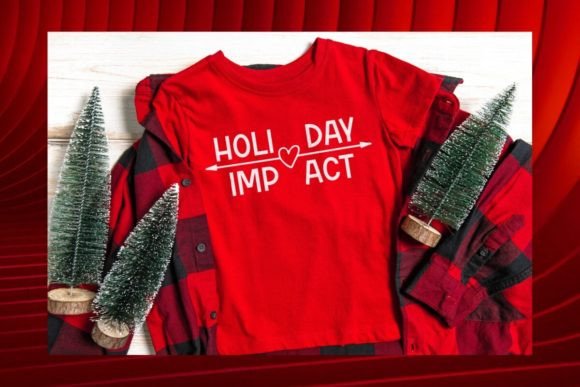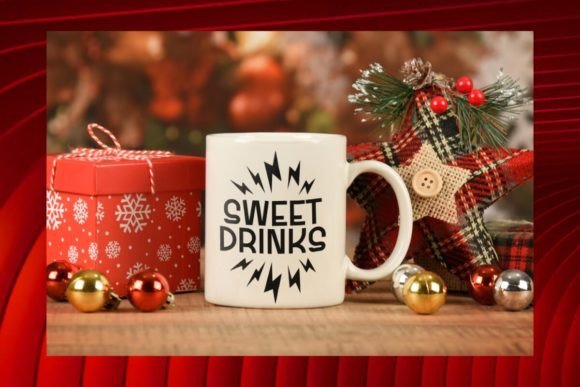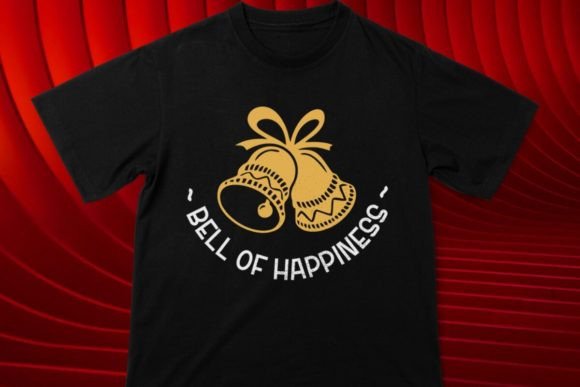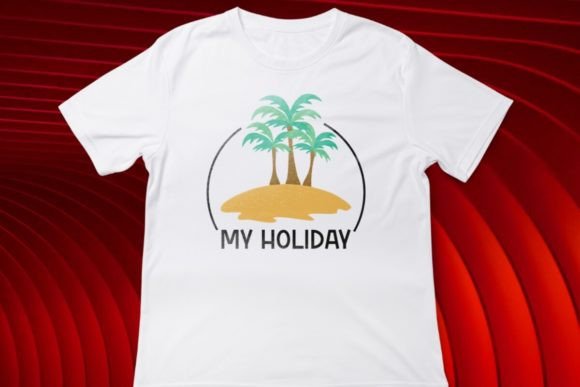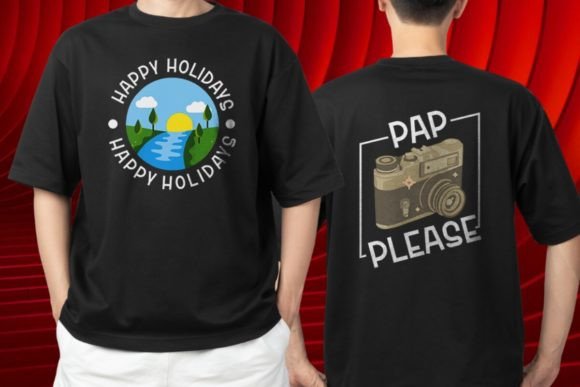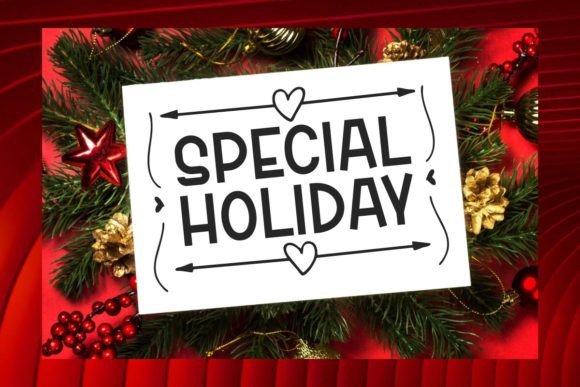
Introduction to Holiday Impact Font
As the snowflakes start to fall and the festive lights twinkle, the holiday season is the perfect time to unleash your creativity and make a lasting impression on your loved ones. Whether you’re a seasoned graphic designer or a DIY enthusiast, finding the right font to capture the essence of the season can be a daunting task. That’s where the Holiday Impact Font comes in – a stunning modern display font that’s sure to elevate your holiday creations and make them truly unforgettable.
With its classic and rich red hue, the Holiday Impact Font is a design resource that’s sure to add a touch of sophistication to your high-quality holiday projects. Whether you’re creating digital art, crafting gift tags, or designing invitations, this versatile font is the perfect companion to help you bring your vision to life. And the best part? It’s available for a free download, making it an accessible design resource for creatives of all levels.
So why settle for an ordinary font when you can make a holiday impact with this exceptional design? Whether you’re working on a small gift wrapping project or a large-scale holiday campaign, the Holiday Impact Font is the perfect addition to your design toolkit.
Key Features of Holiday Impact Font
- Unique and festive design elements with a transparent background
- Supports a wide range of languages and characters
- Perfect for adding a touch of holiday spirit to various design projects
Honest Review: Holiday Impact Font
As a designer, I’m always on the lookout for high-quality design resources to elevate my creative projects. The Holiday Impact Font caught my eye with its unique, festive design.
- Transparent background: The transparent background option is perfect for creating holiday-themed graphics with a subtle, festive feel.
- Creative project potential: The Holiday Impact Font is versatile enough to be used in a variety of creative projects, from social media graphics to print materials.
One potential limitation is the font’s limited character set. While it includes a range of holiday-themed symbols, it may not be suitable for projects that require a full set of characters.
Overall, the Holiday Impact Font is a great addition to any designer’s toolkit. Its unique design and free download make it a great resource for creative projects, and the transparent background option adds an extra layer of versatility.
The Holiday Impact Font is perfect for creating engaging designs and graphics for various occasions, such as holiday cards, party invitations, and social media posts. Its high quality and transparent background make it an ideal choice for designers and non-designers alike.